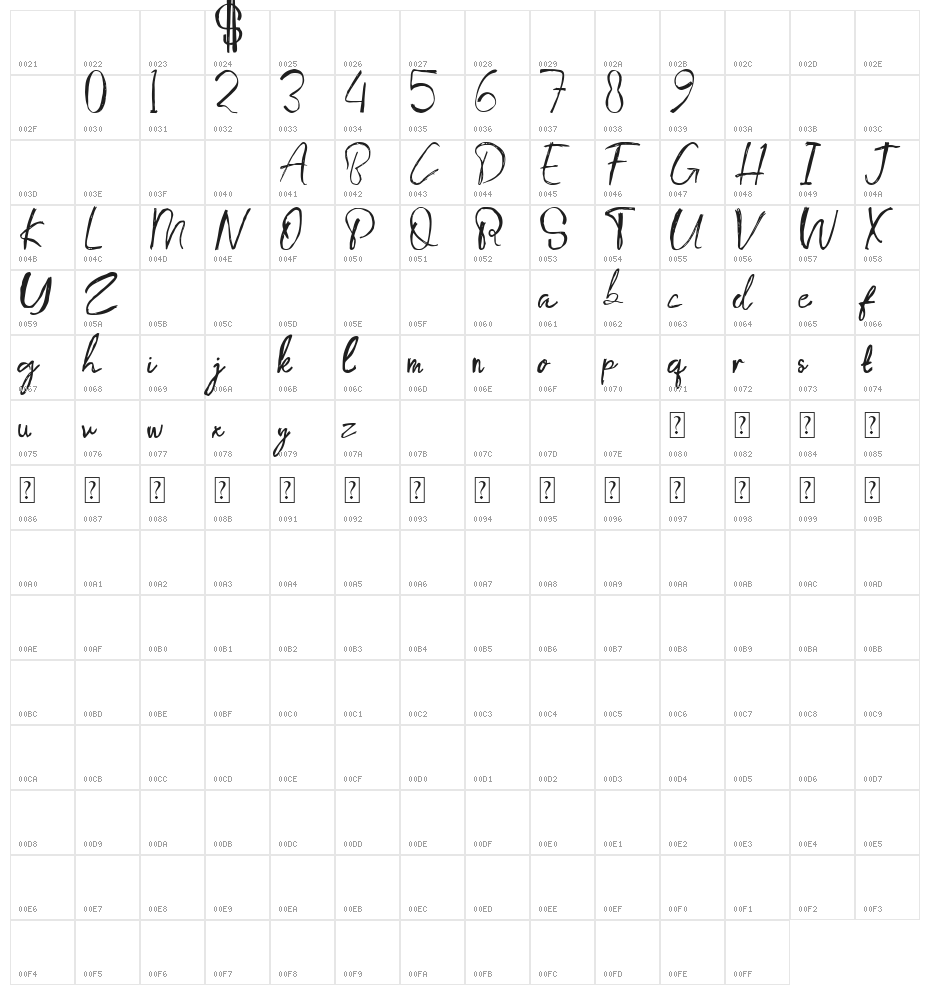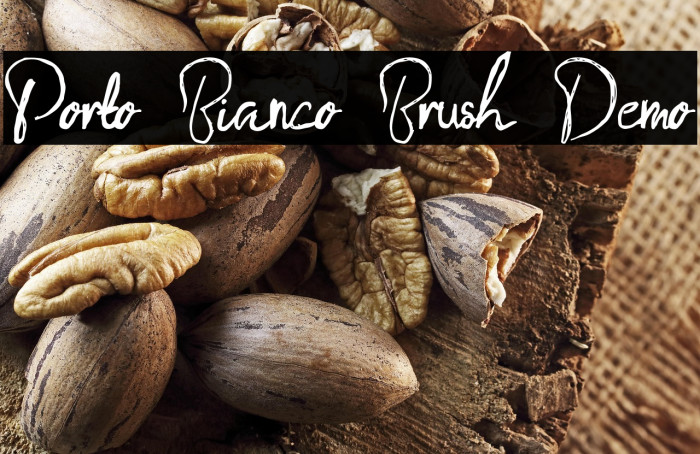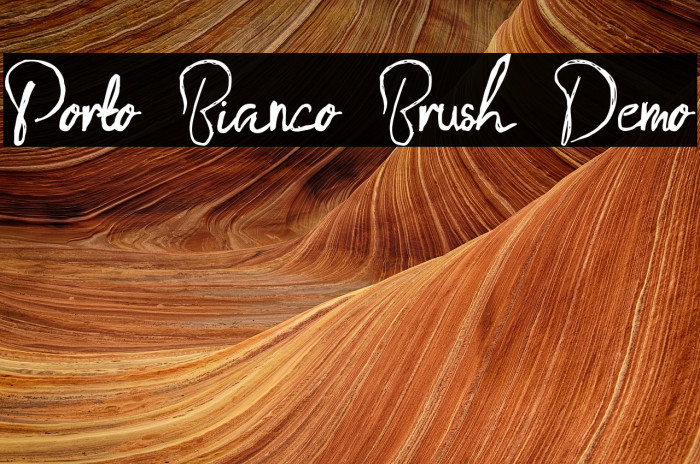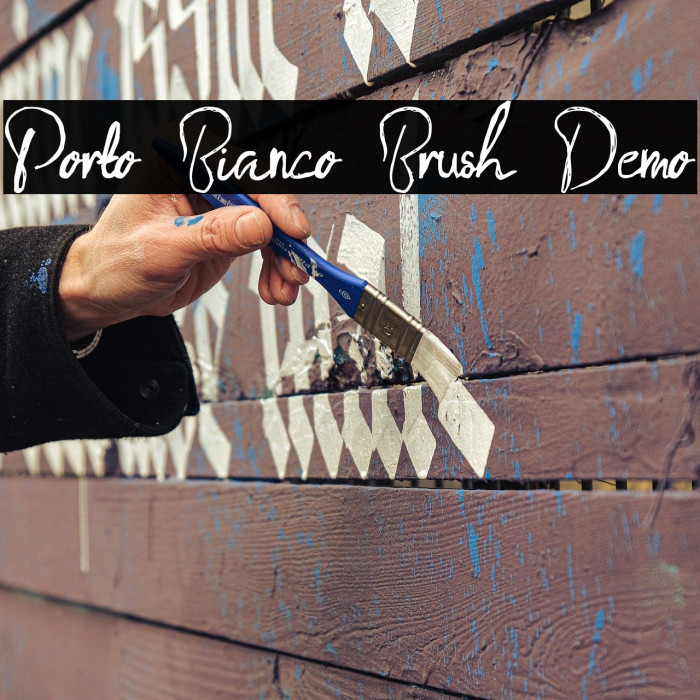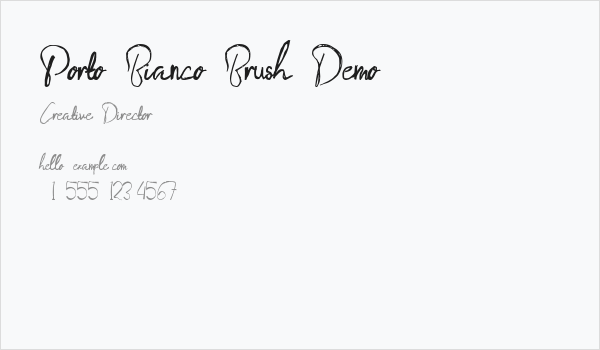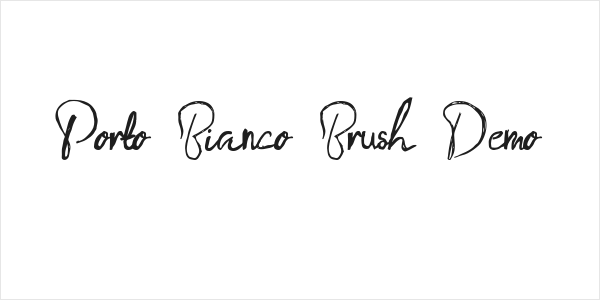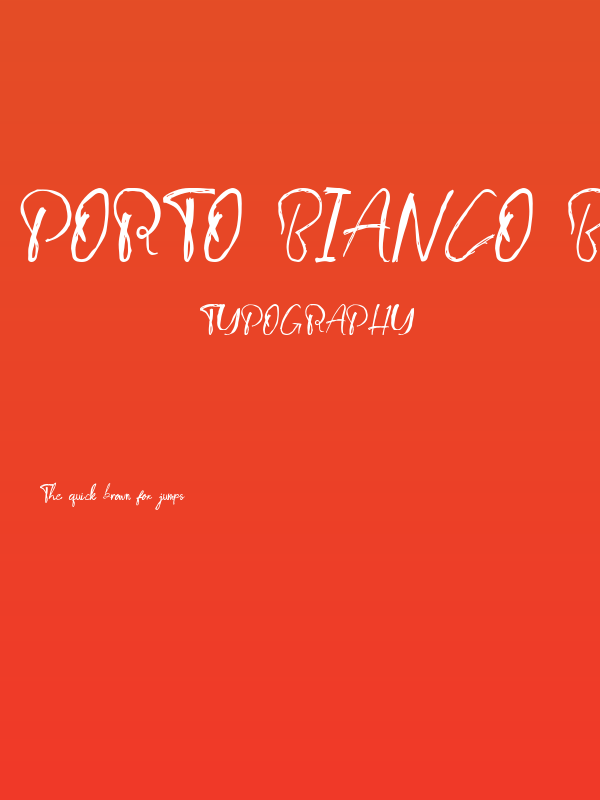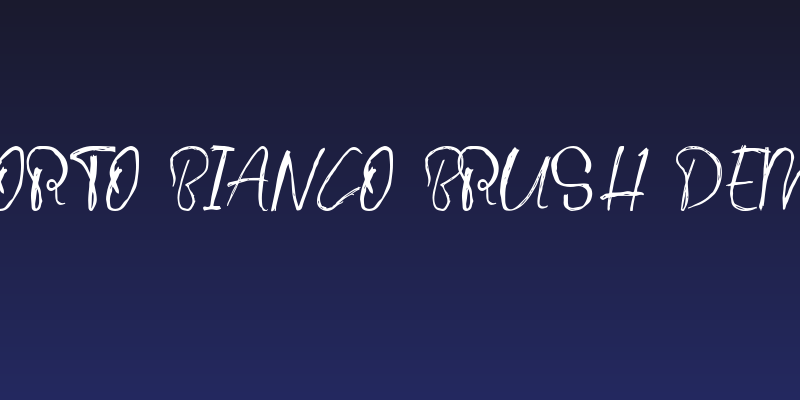
Porto Bianco Brush Demo Font
Porto Bianco Brush Demo Description
This font exudes a dynamic and artistic flair, characterized by its brush-like strokes that convey a sense of movement and energy. The uppercase letters are bold and expressive, with varying stroke widths that create a lively rhythm. The lowercase letters maintain this energetic style, offering a more fluid and connected appearance. Numbers are equally bold, with a playful yet sophisticated touch. The special characters complement the overall aesthetic, enhancing the font's versatility. This font is perfect for projects that require a personal and creative touch, such as branding, invitations, and artistic designs.
| Overall Style | Artistic |
| Use Case | Logos, Headlines, Artistic designs |
| Proposed Projects | Ideal for branding, invitations, artistic designs, and creative projects. |